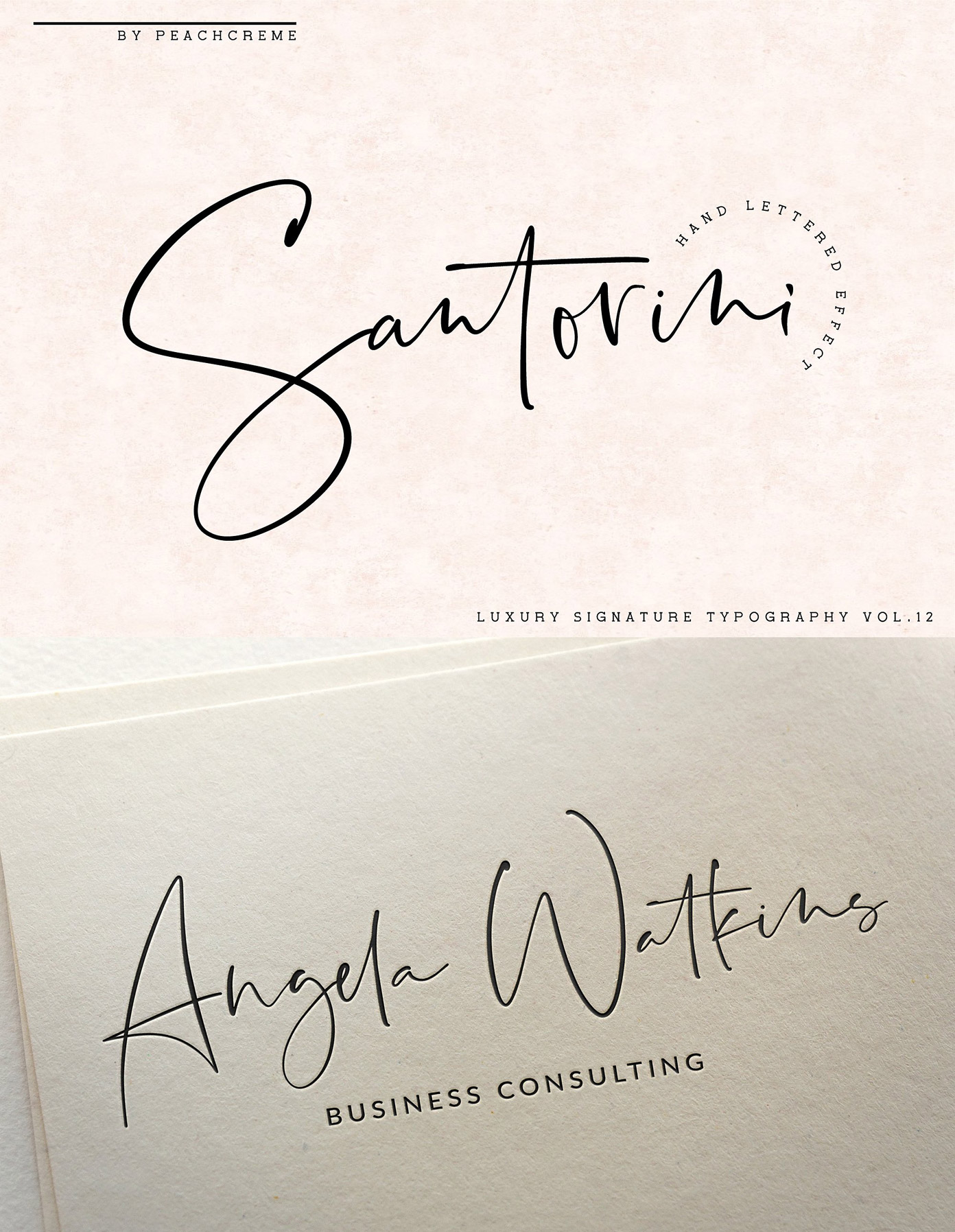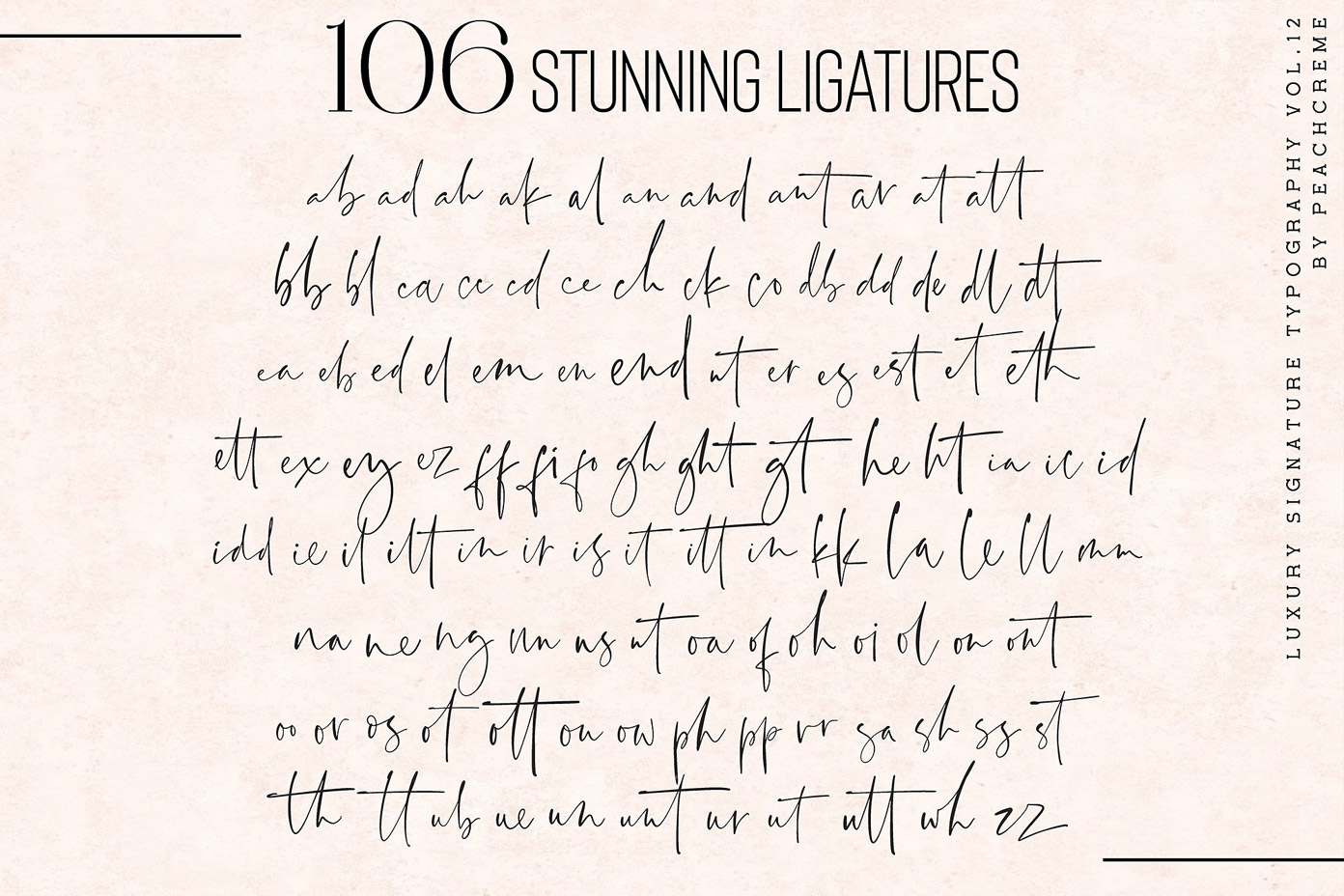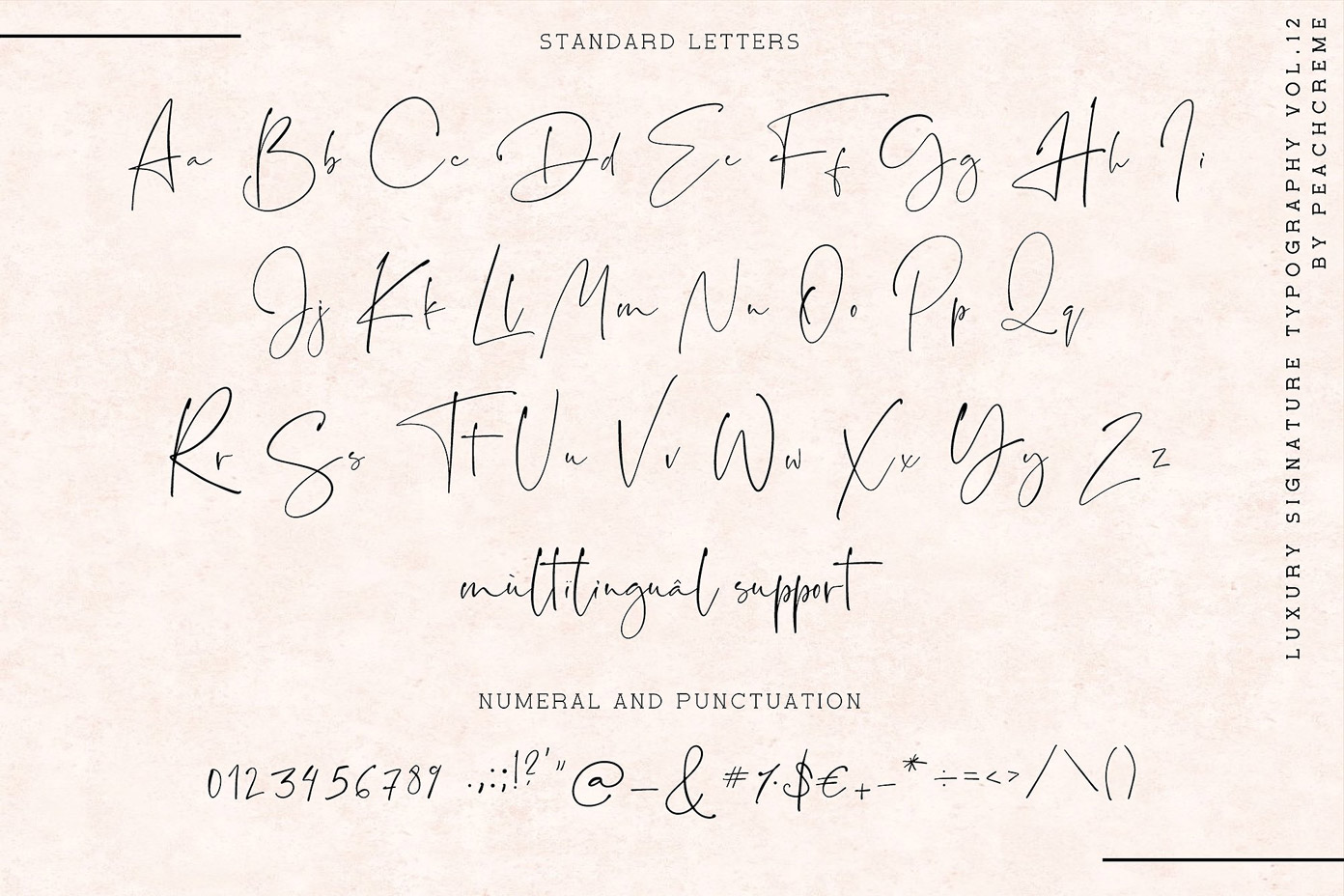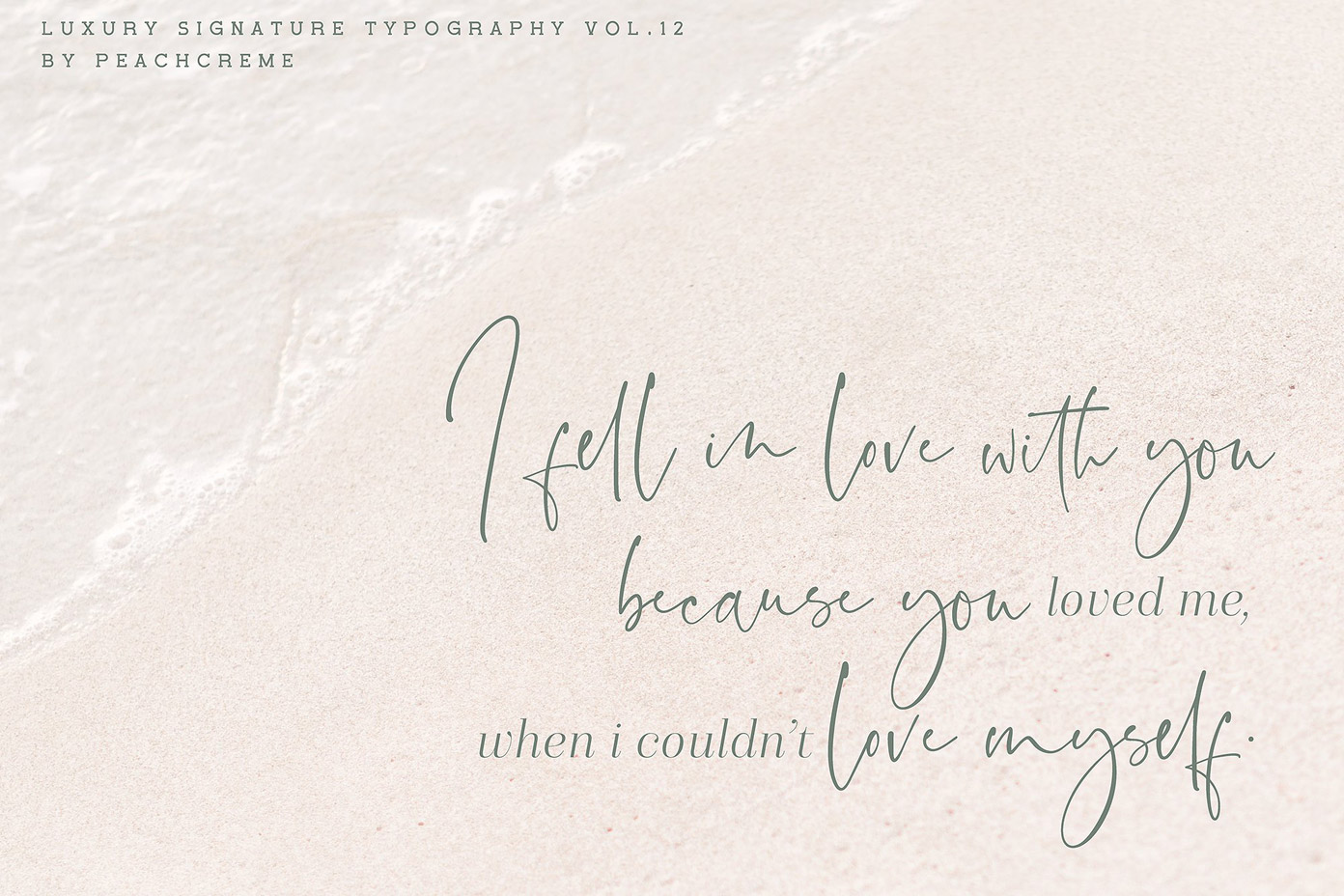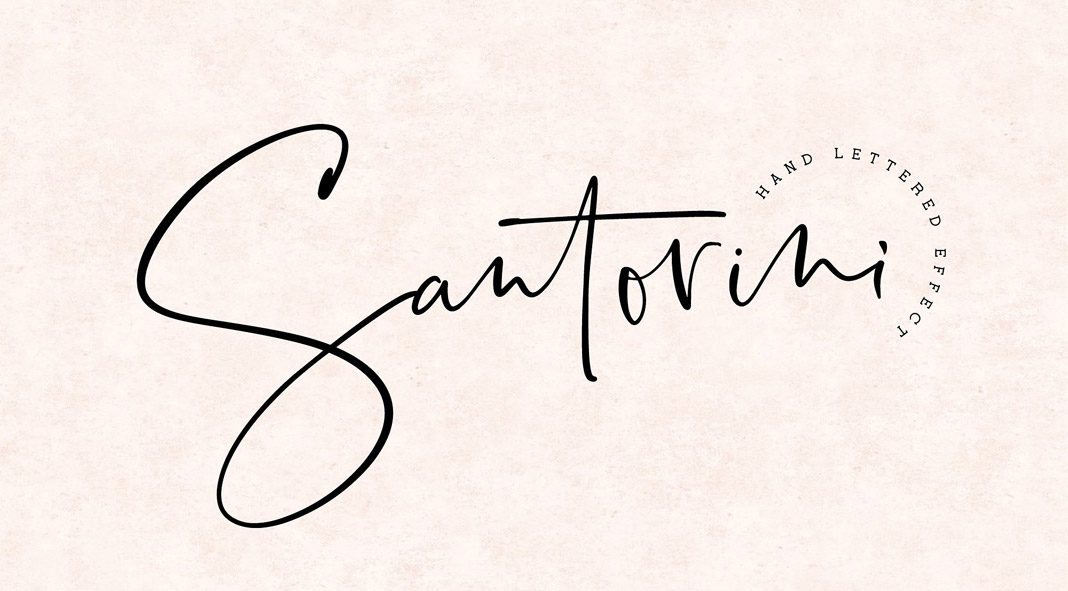
Santorini, a natural and very elegant script font for brand and logo design.
Gulya Ju, a graphic and typeface designer has created the Santorini font with the aim to produce a typeface that masterfully provides the vibe of real hand lettering. Inspired by the Greek island, Santorini is a script font that can be used for a wide range of graphic design and typographic projects including branding, logotypes, signage, greeting cards, magazine covers, website headers, just to name a few. The font is equipped with lots of typographic features such as 106 ligatures. You can use them to give your work an even more natural style. Furthermore, the Santorini typeface includes a full set of uppercase and lowercase letters as well as multilingual symbols, numerals, and punctuation. And there are more details: the font comes with a smooth wet ink texture. To learn more about this beautiful font, please follow the link below.